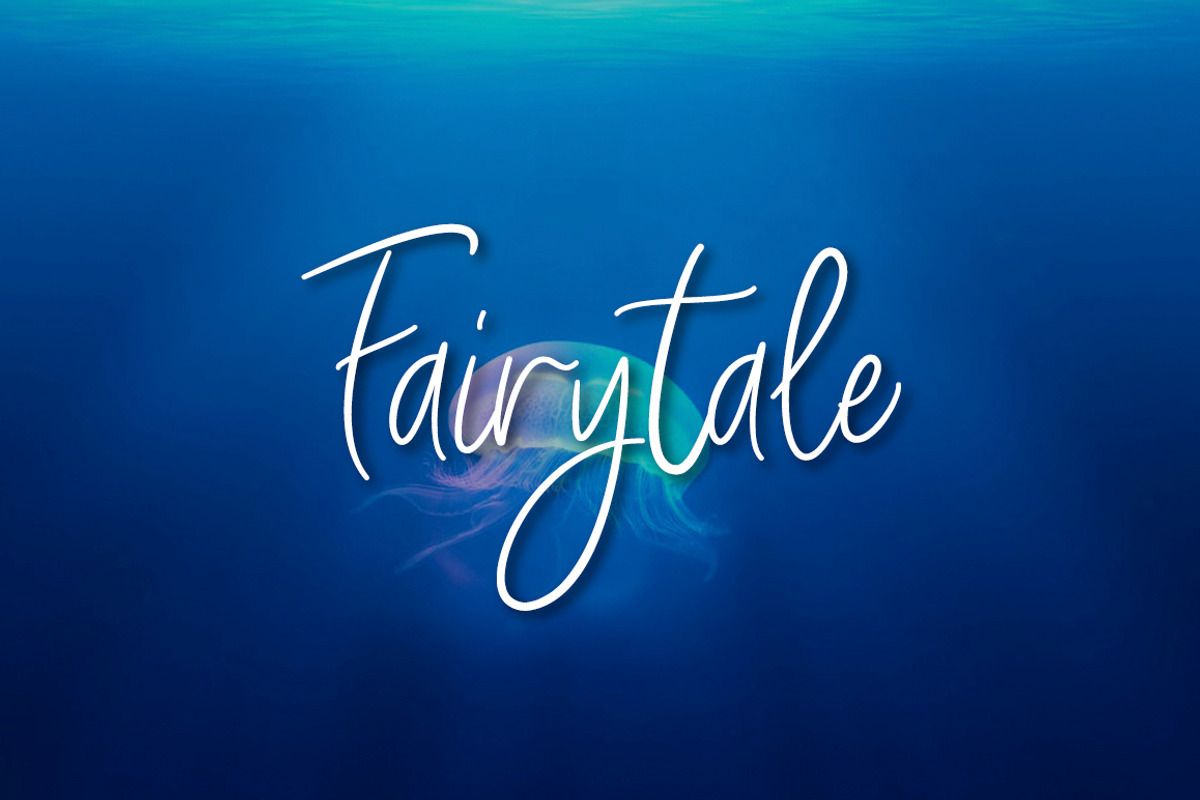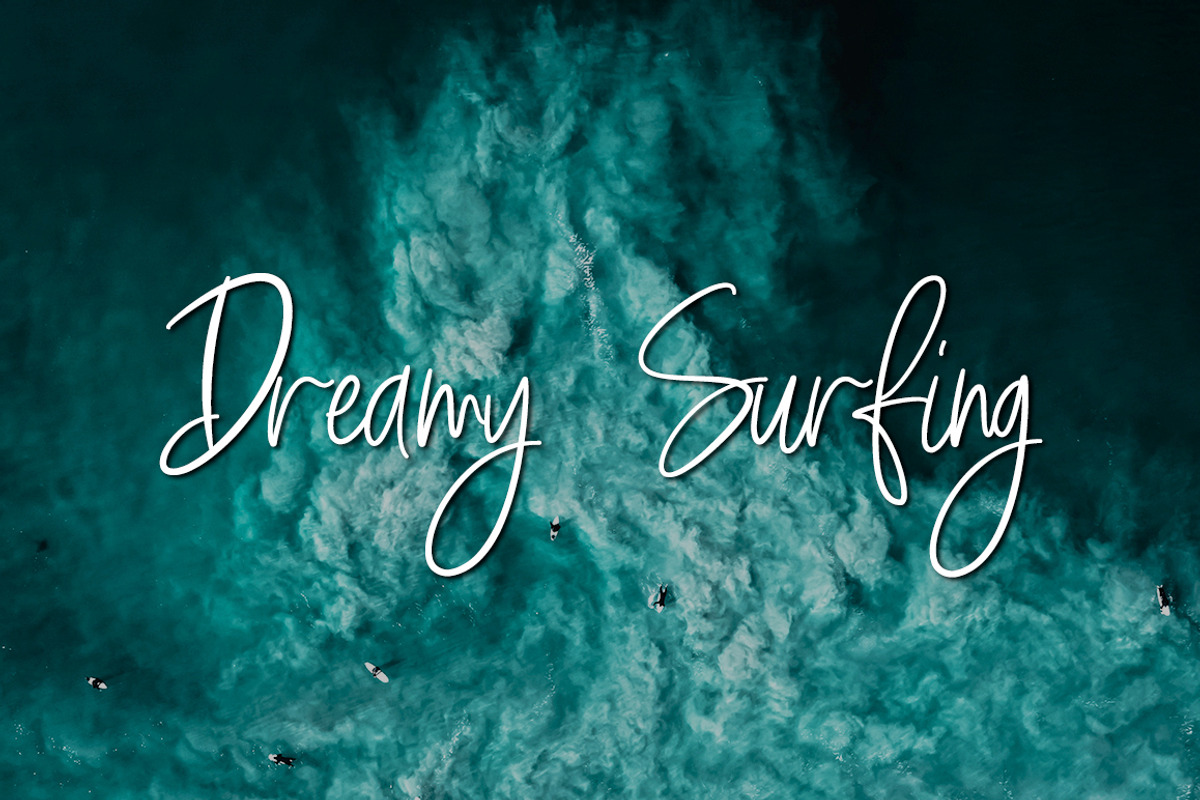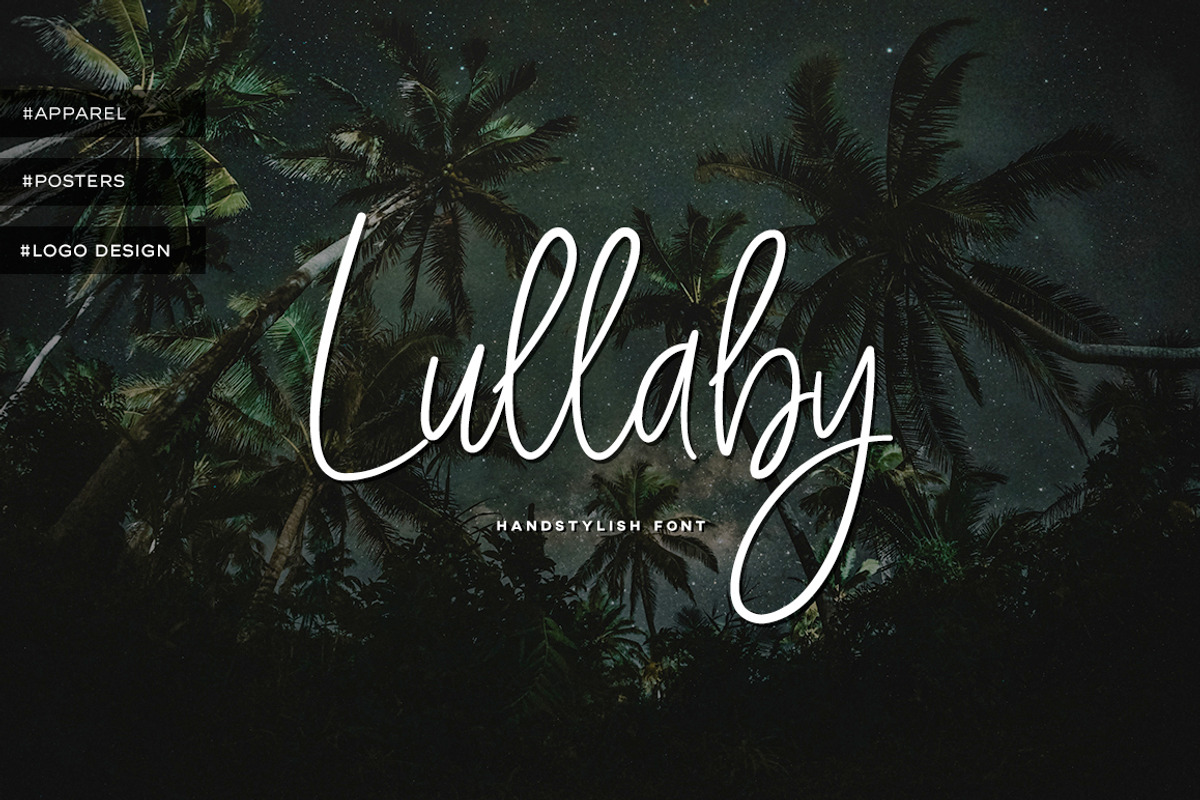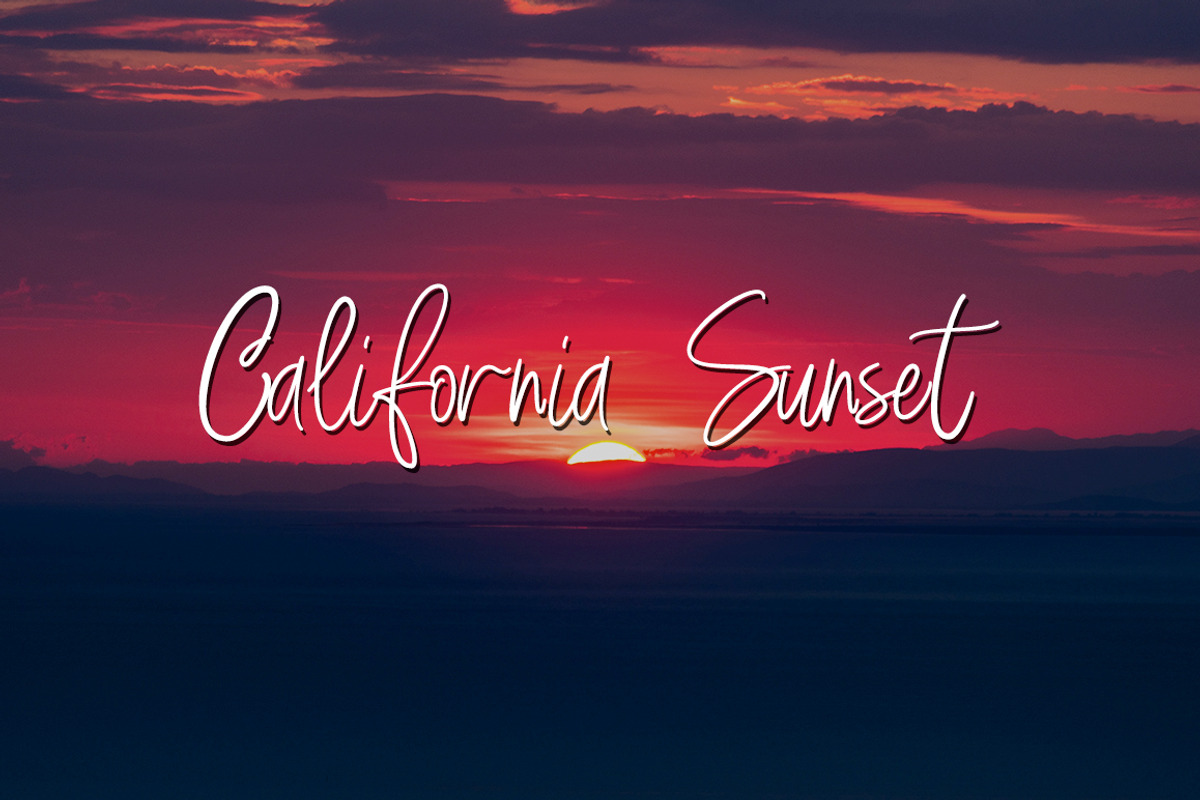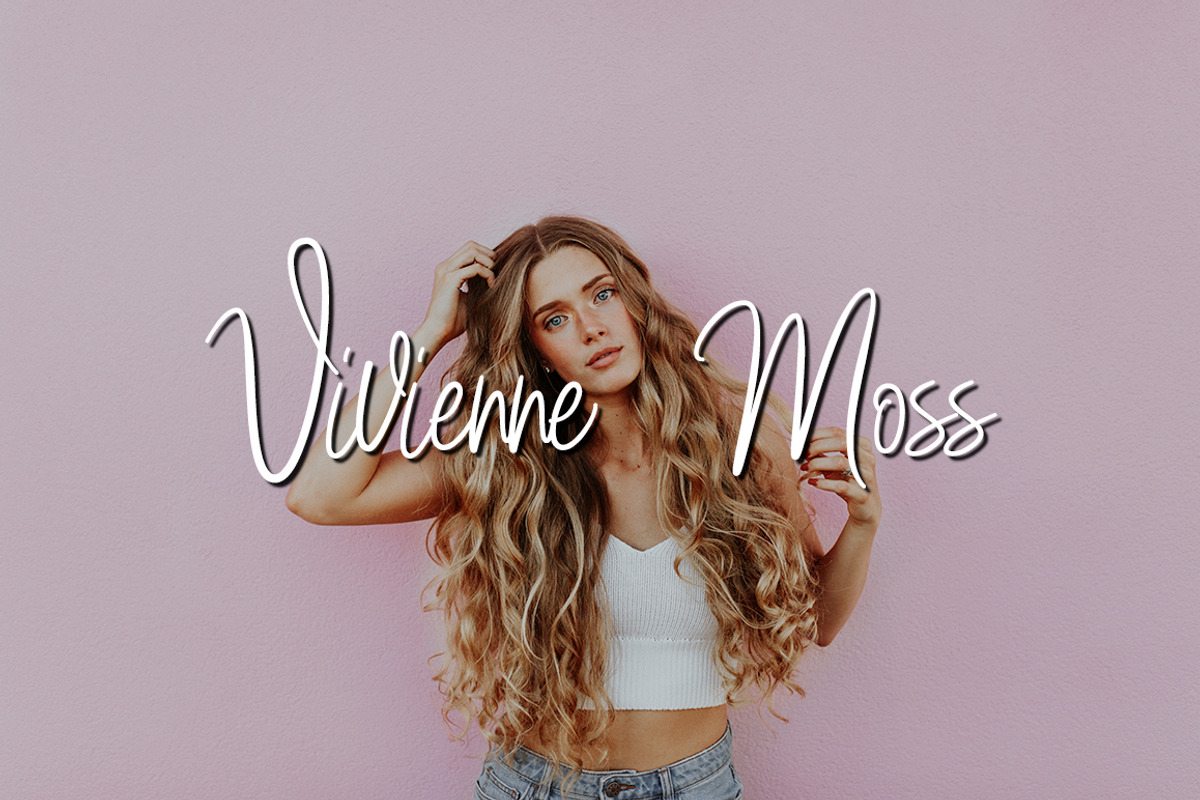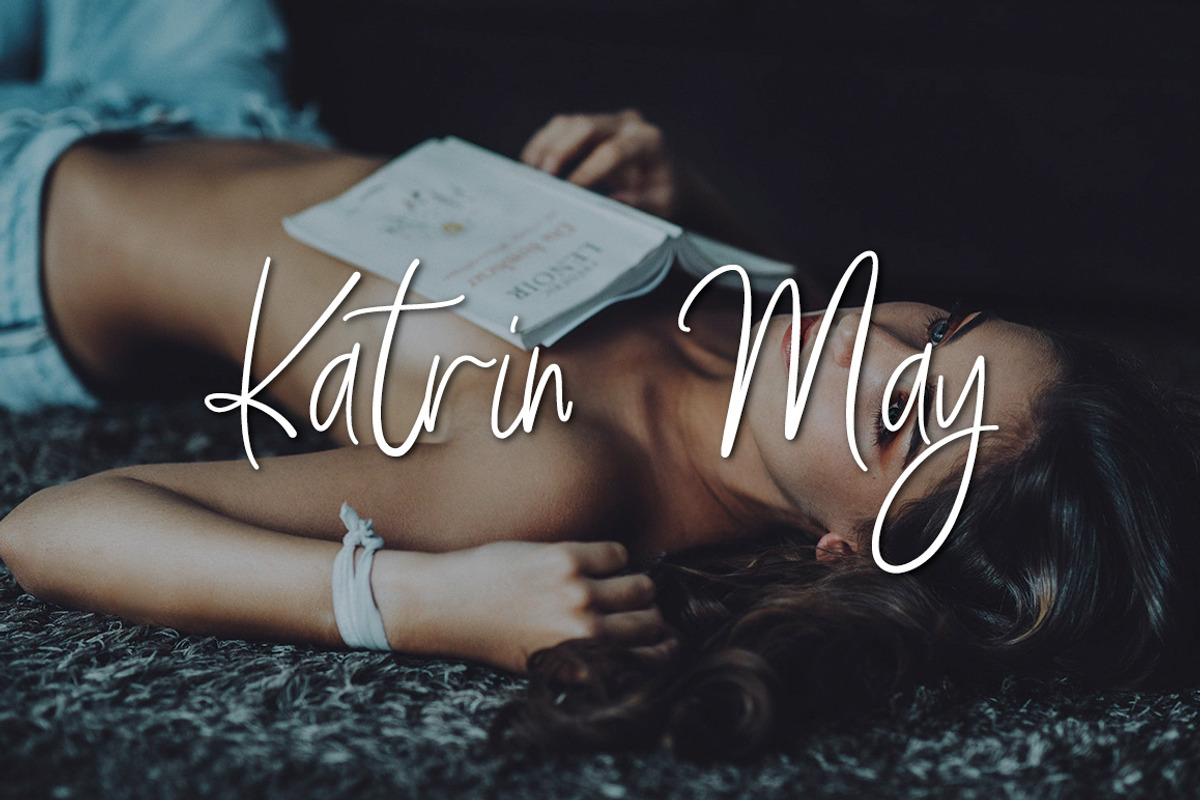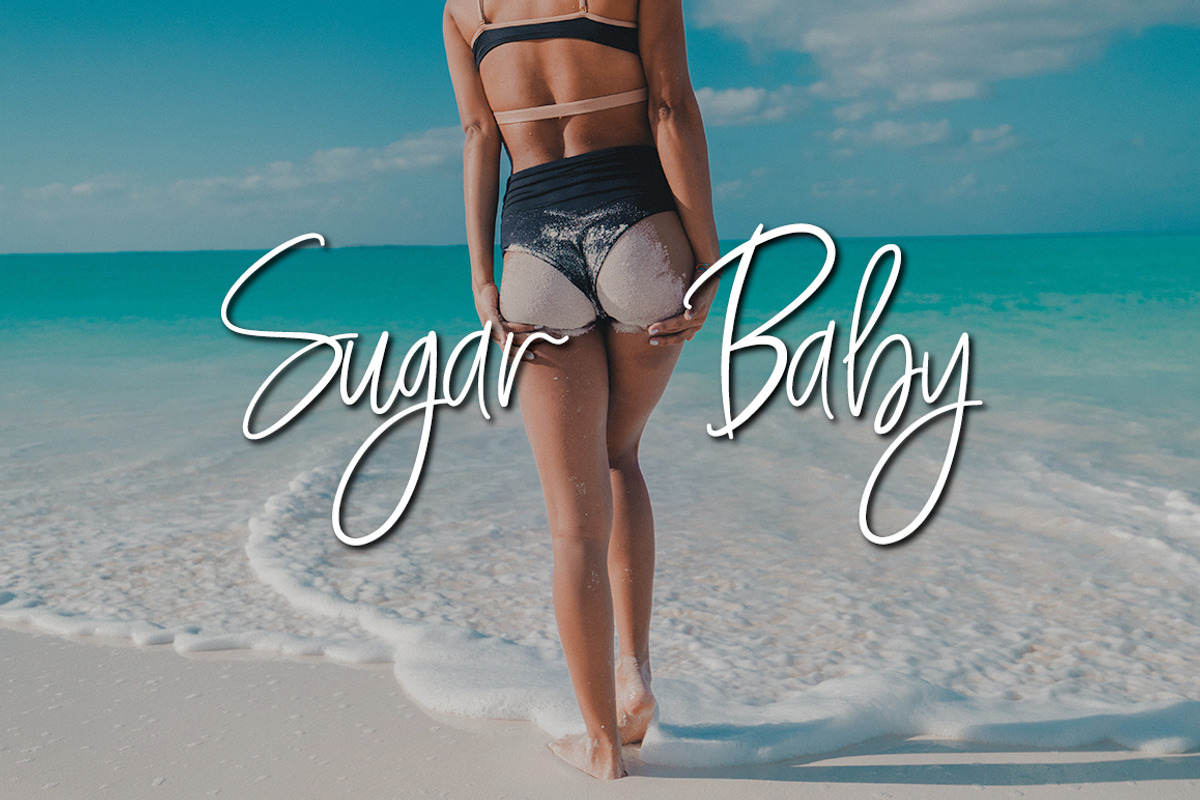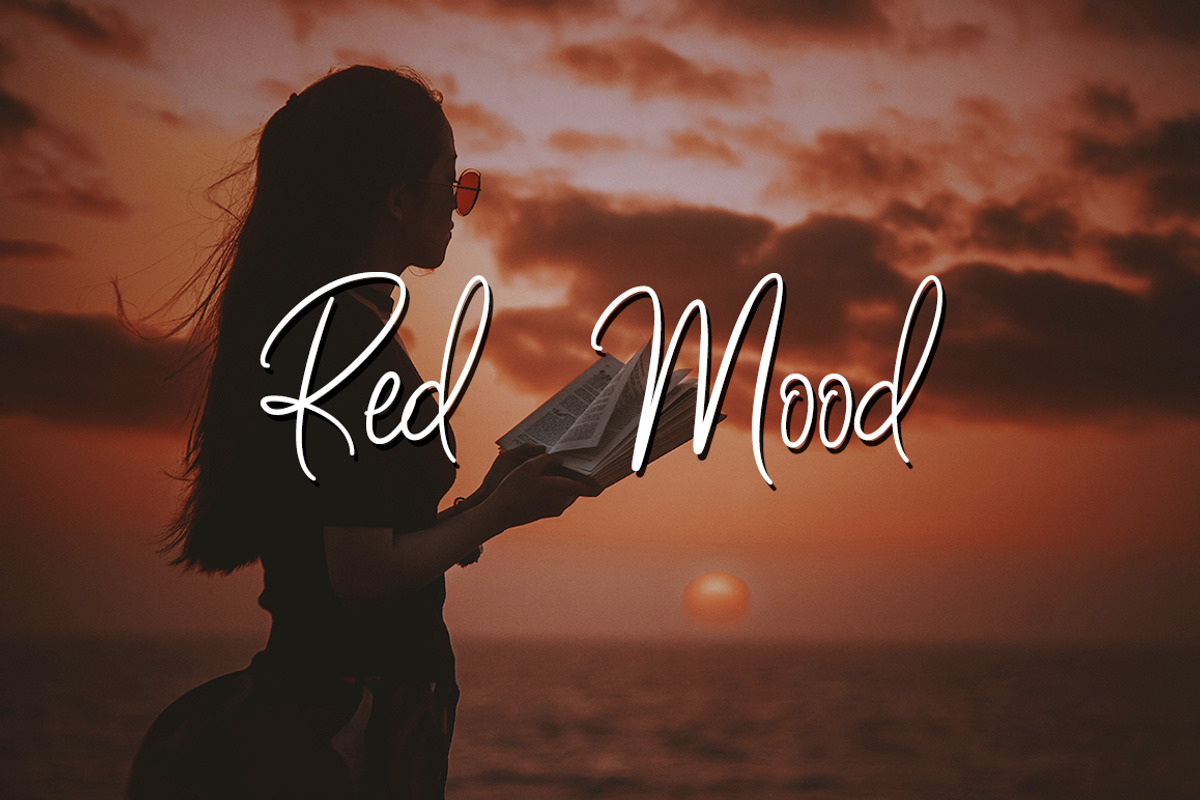
Lullaby Monoline Font
💢 New Calligraphic Script - LULLABY! 💢
👉🏻 This handwritten font fits best for travel print cover and logo designer, poster and appearel designer and can really improve storytelling and give some extra vibes to photographers and filmmakers!
Lullaby script is the best asset in artist inventory!
Why Lullaby Monoline Font is worth a look
Lullaby Monoline Font by n.A Studio fits naturally into Branding, posters, packaging, typography.